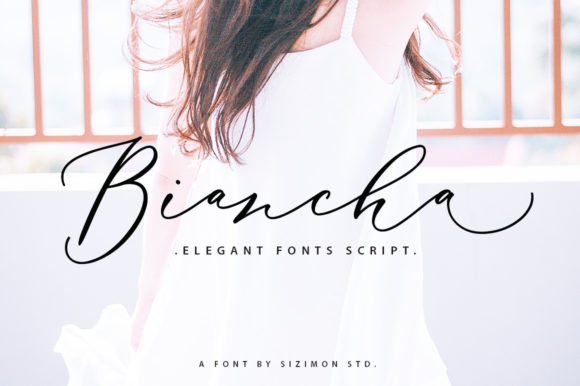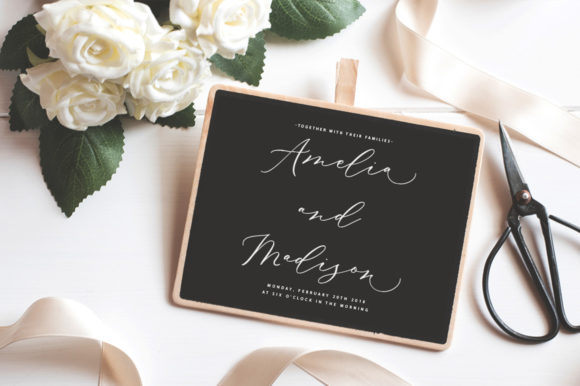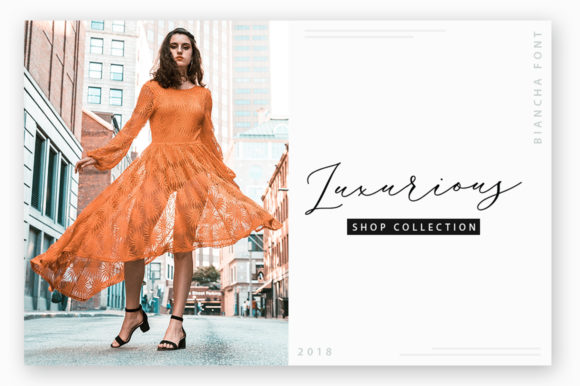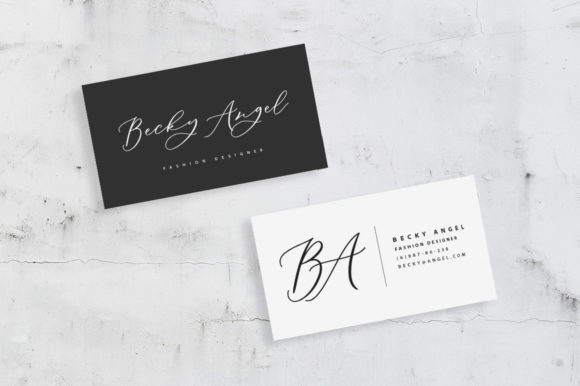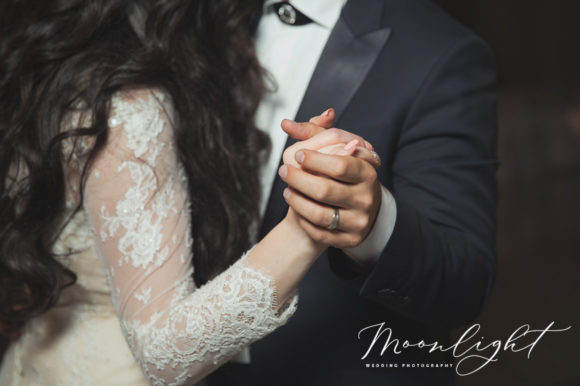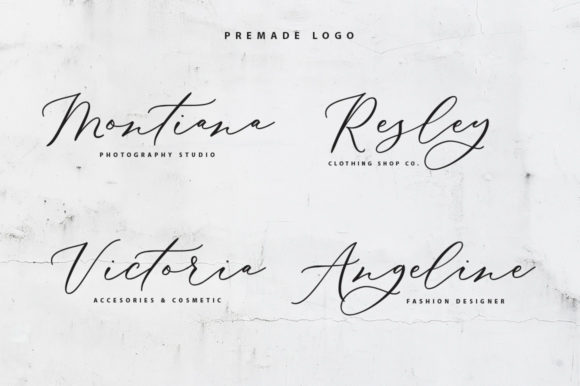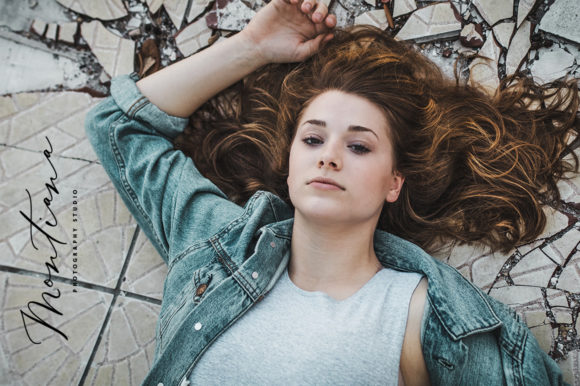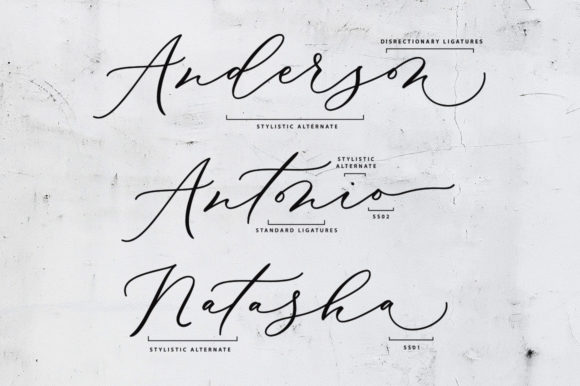
Biancha Font
About Biancha Font
Biancha is an incredibly relaxed and flowing handwritten font. It is PUA encoded which means you can access all of the glyphs and swashes with ease! It features a varying baseline, smooth lines, gorgeous glyphs and stunning alternates. Fall in love with its versatile style and use it to create spectacular designs!